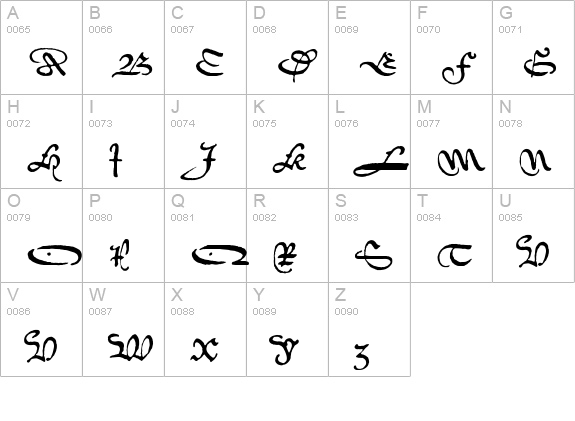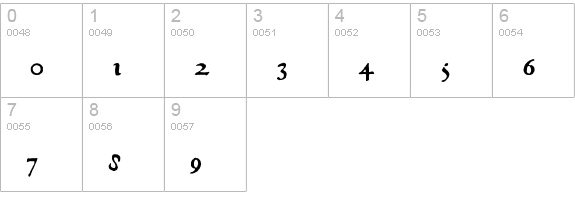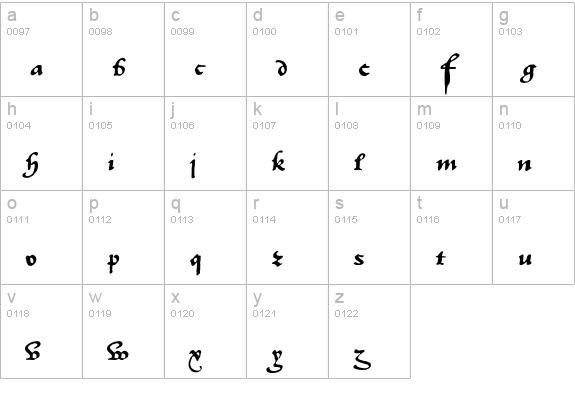
Historical-StAugustinCivilite font is a timeless and elegant typeface inspired by ancient calligraphy styles. With its delicate serifs and intricate details, this font brings a touch of sophistication to any design project. The graceful curves and ornate flourishes of Historical-StAugustinCivilite font evoke a sense of history and tradition, making it perfect for projects that require a touch of old-world charm. One of the best things about Historical-StAugustinCivilite font is that it is available for free download at FontsMarket.com. This means that you can easily add this beautiful font to your collection without having to spend a penny. Whether you're working on a wedding invitation, a vintage-themed poster, or a historical book cover, Historical-StAugustinCivilite font is sure to elevate your design and give it a touch of class. Don't miss out on the opportunity to use this stunning font in your projects. Download Historical-StAugustinCivilite font for free today and add a touch of timeless elegance to your designs.